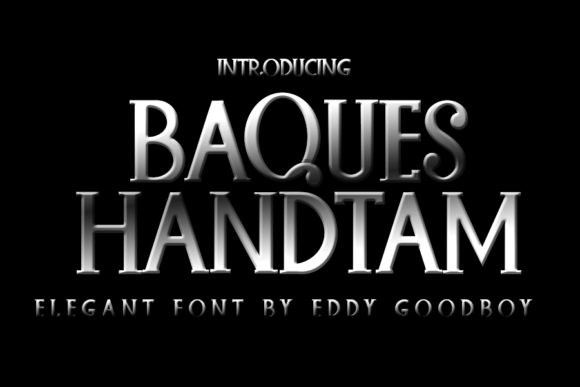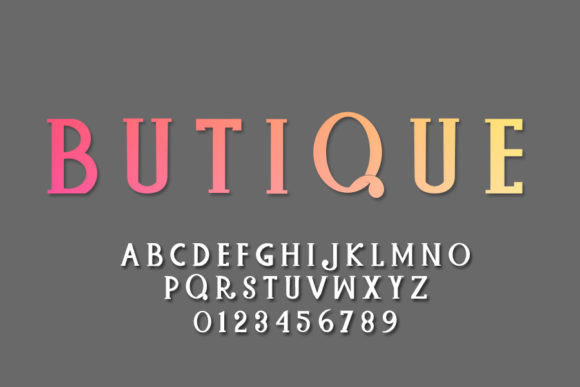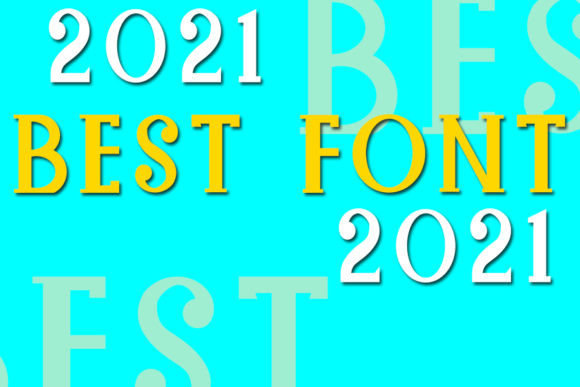
Baques Handtam Font
Baques Handtam is a stylish and incredibly elegant serif font. It looks stunning on wedding invitations, thank you cards, quotes, greeting cards, logos, business cards and every other design which needs a handwritten touch.